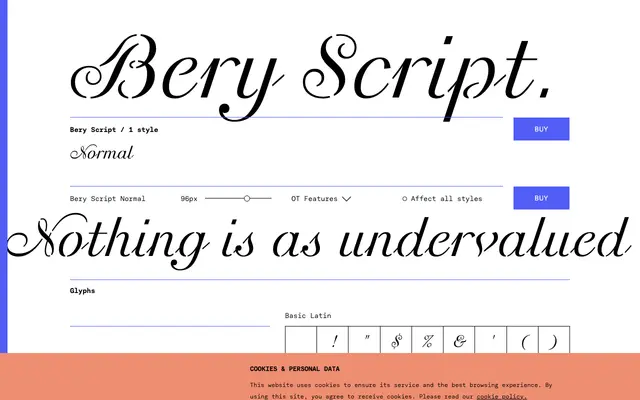
Bery Script
TYPE BY · Fred Smeijers · 2012
A single-weight stencil script by Fred Smeijers, drawn from the 18th-century French stencil letters of Paris stencil maker Jean Gabriel Bery.
Fred Smeijers adapted the batârde coulée calligraphic hand of Jean Gabriel Bery, whose stencil set was supplied to Benjamin Franklin in 1781 and is now held at the American Philosophical Society in Philadelphia. The stencil breaks, rather than undermining the script's rhythm, introduce a syncopation that works across text settings, aided by lowercase linking strokes added by Smeijers. Released in 2012 as part of TYPE BY's Stencil Fonts Series, it is paired with Bery Roman and sits within a body of work that accompanied an exhibition on the history of the stencil letter curated by Smeijers and Eric Kindel.
A script typeface derived from 18th-century French stencil letters in the batârde coulée calligraphic tradition, with stencil breaks built into the design as a structural feature rather than a limitation.